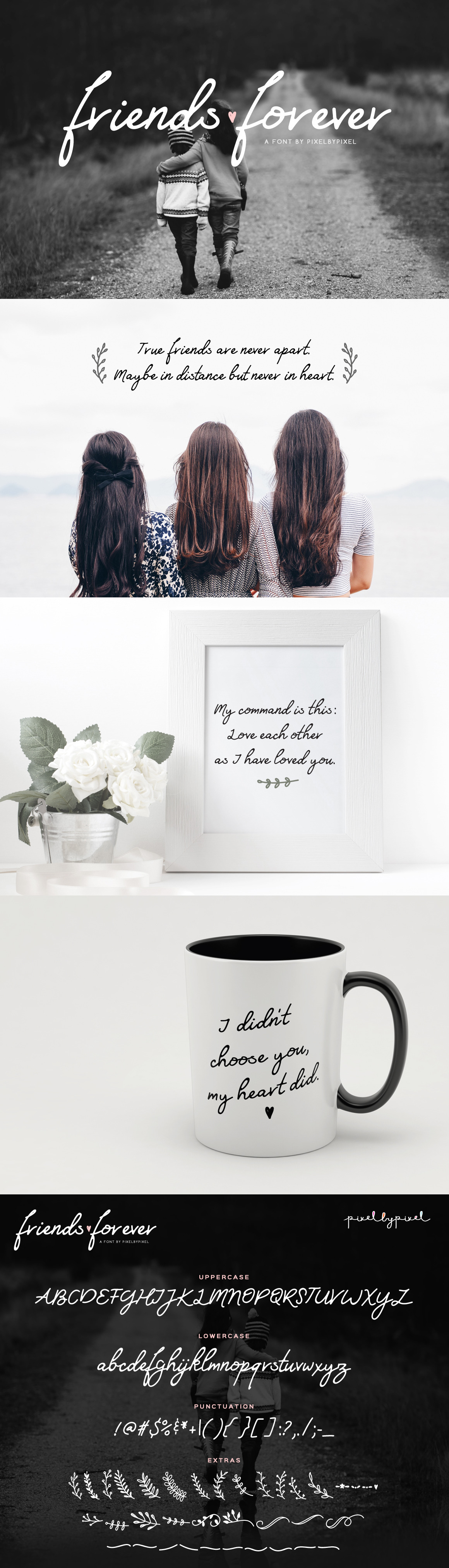
Friends Forever Font + Floral Extras
An imperfect girly script font. Combine with the extra floral elements font and make pretty logos and designs.
- Uppercase and lowercase characters.
- Numbers and punctuation.
- Floral elements & swashes